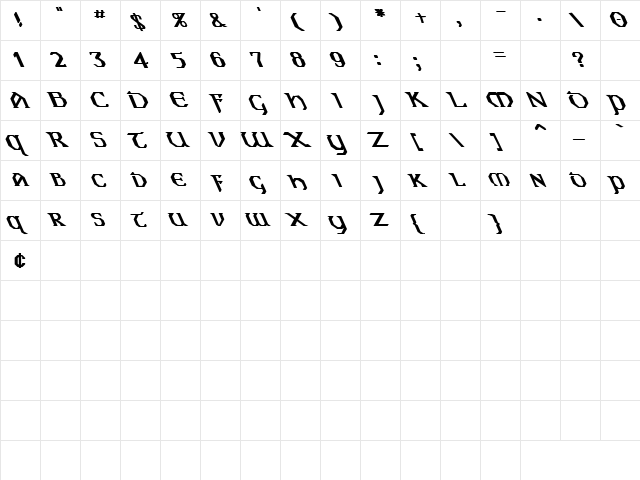
Jealous 2 Bold Font Preview
Jealous 2 Bold
Design Context for Jealous 2 Typeface
Jealous 2 is a composed and adaptable typeface that performs quietly and consistently across a wide range of design contexts. Its bold stroke weight gives it real presence on the page.